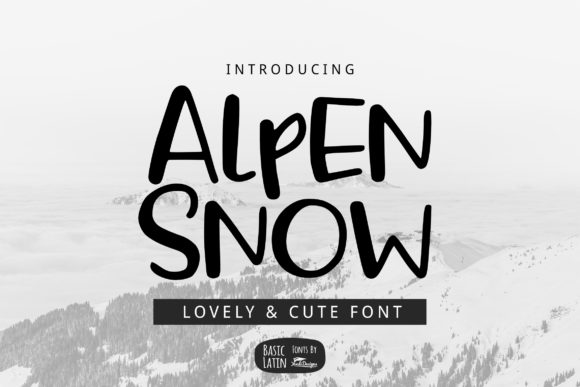
Embrace the untamed charm of the Swiss Alps and let your creativity run wild with Alpen Snow, the captivating script font that's more than just a font - it's an experience. Created by the visionary YandiDesigns, Alpen Snow takes you on a journey through the majestic peaks and pristine valleys, capturing the essence of nature's raw beauty and translating it into a font that's as unique as it is versatile.
With its flowing strokes, delicate curves, and unmistakable authenticity, Alpen Snow is the perfect choice for adding a touch of organic elegance to your designs. Its carefully crafted glyphs are a testament to the rich heritage of Swiss typography, evoking the charm of handwritten letters and the timeless allure of vintage design.
Unleash your creativity and let Alpen Snow transform your words into works of art. Create enchanting invitations that capture the magic of a mountaintop wedding, design awe-inspiring social media posts that stand out in the digital wilderness, or craft heartfelt greeting cards that carry a piece of the Alps with every word.
Alpen Snow isn't just a font; it's an adventure, a journey, and a celebration of the wild and the wonderful. It's the perfect companion for those who dare to be different, who seek inspiration in the unexpected, and who believe that every project deserves a touch of authenticity.
So, dive into the world of Alpen Snow and let your imagination soar. Discover a world of endless possibilities, where your words take on a life of their own and your projects come alive with the spirit of the Alps. Dare to be captivated by Alpen Snow, the script font that's more than just a font - it's a piece of art, a breath of fresh air, and a testament to the enduring power of creativity.